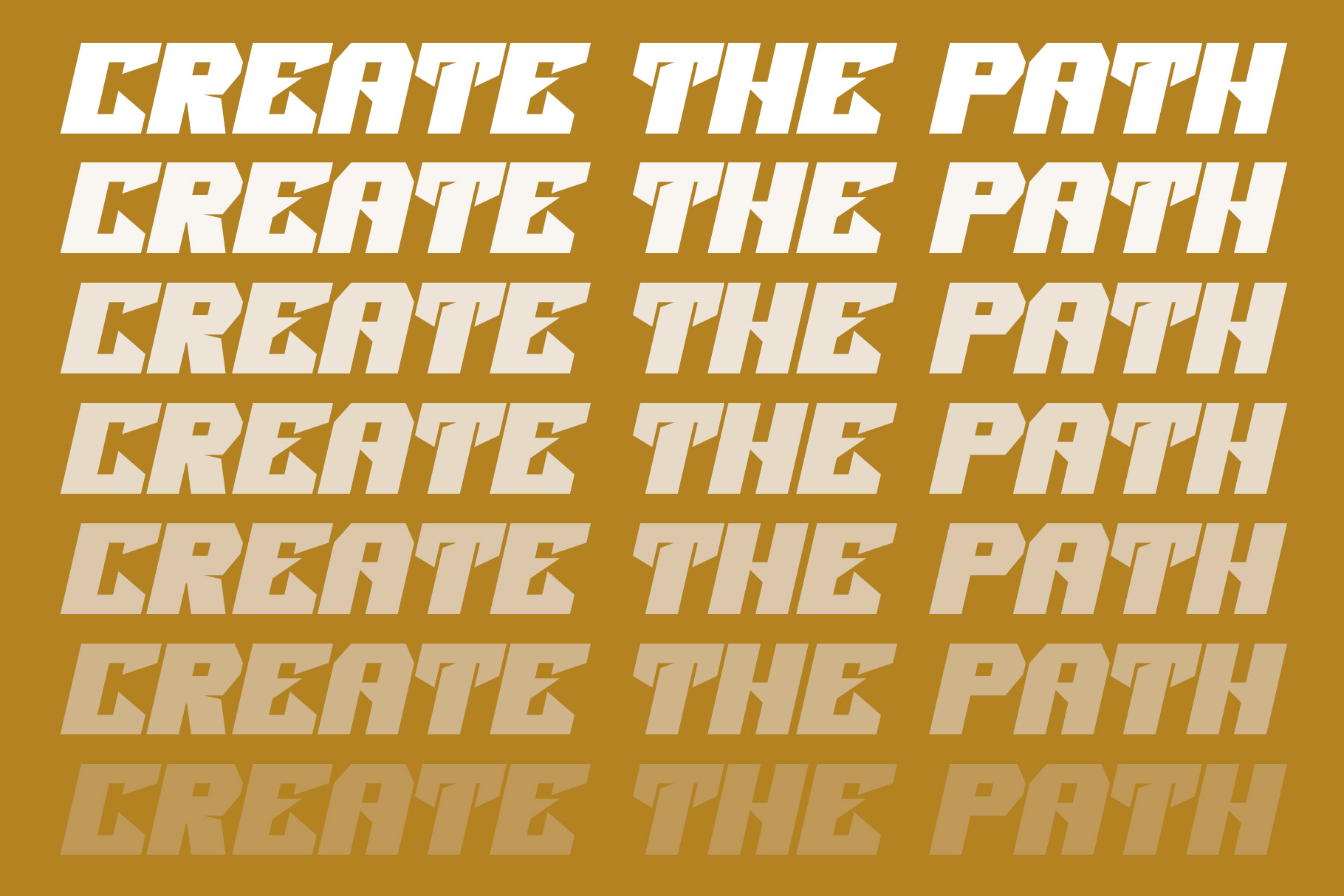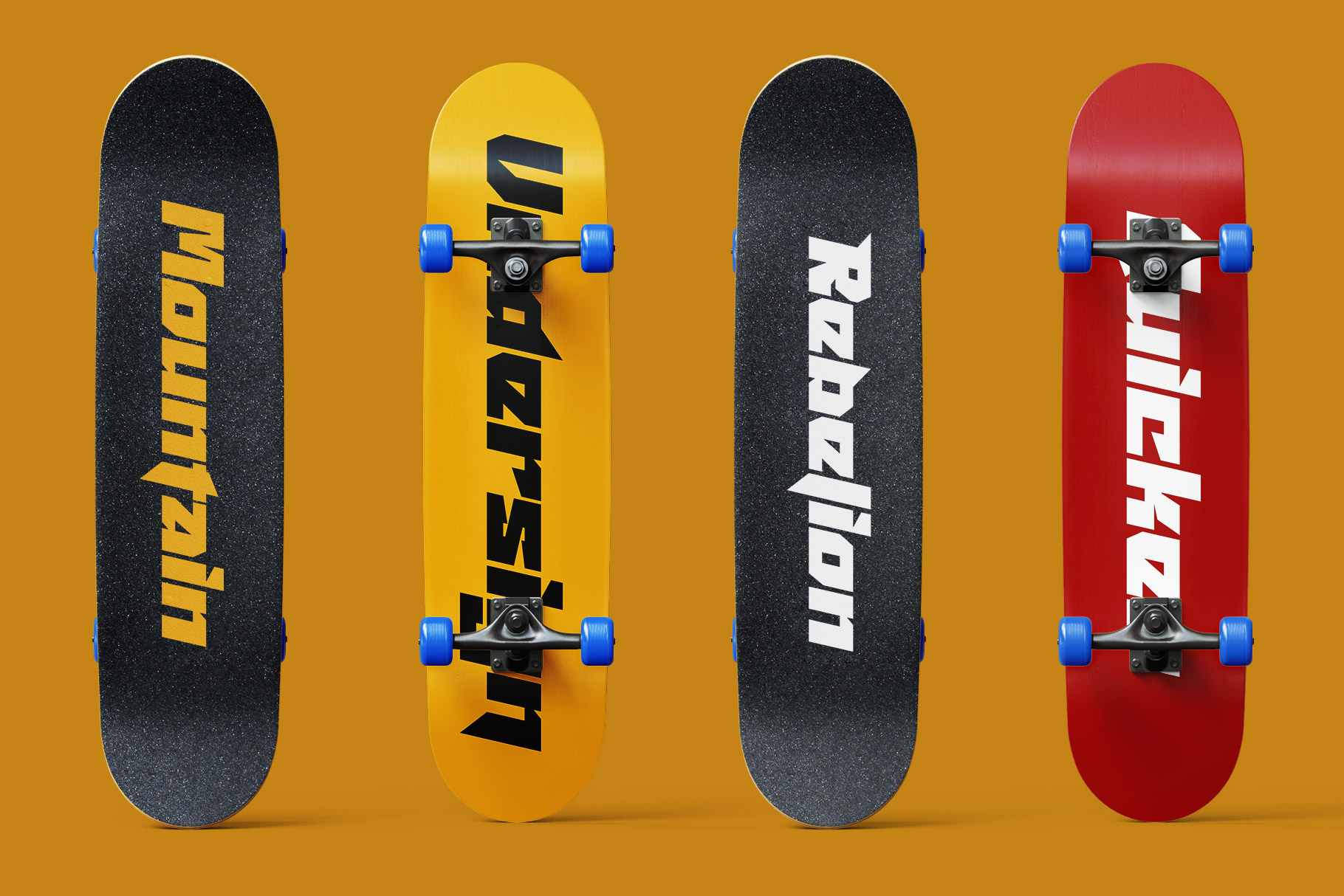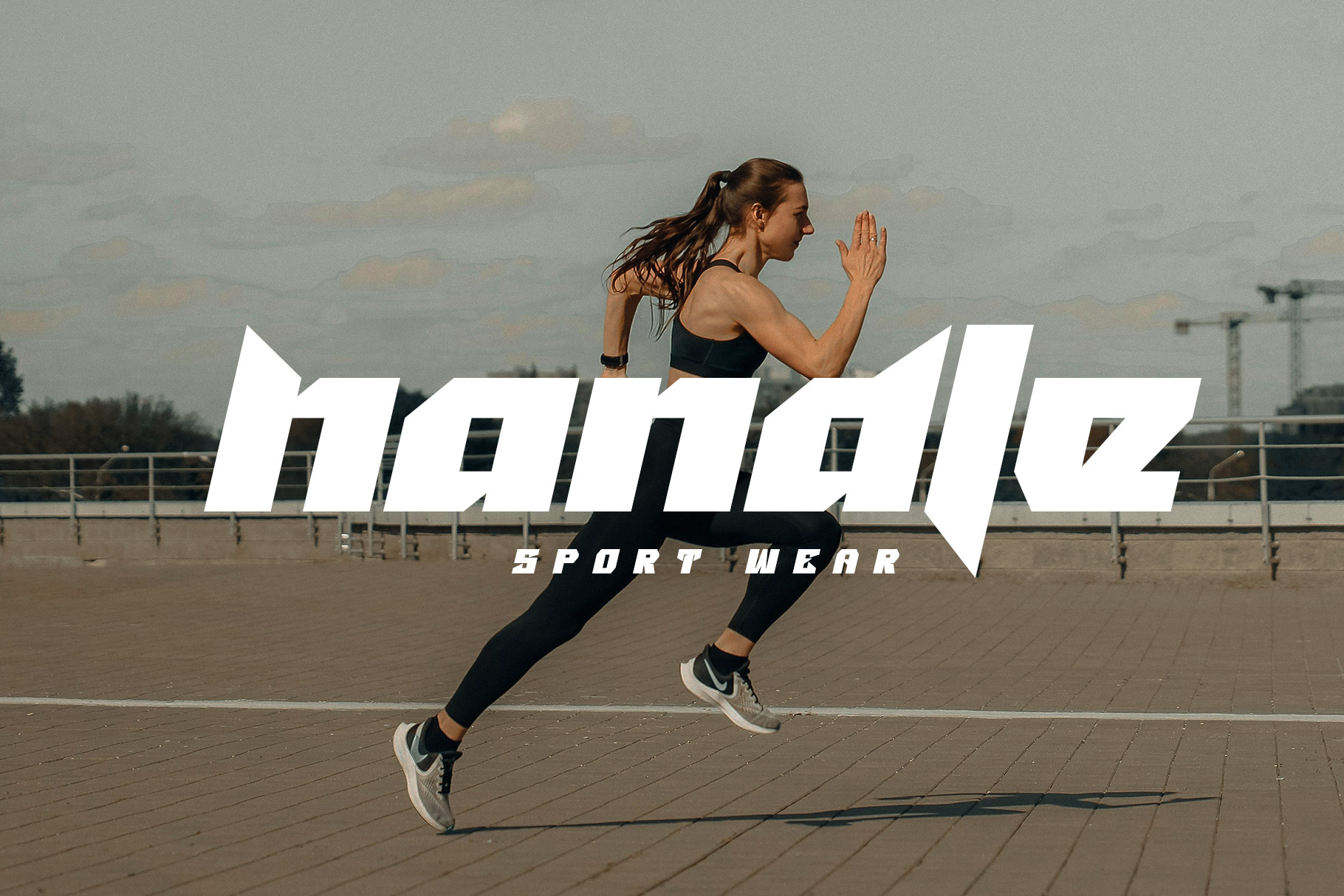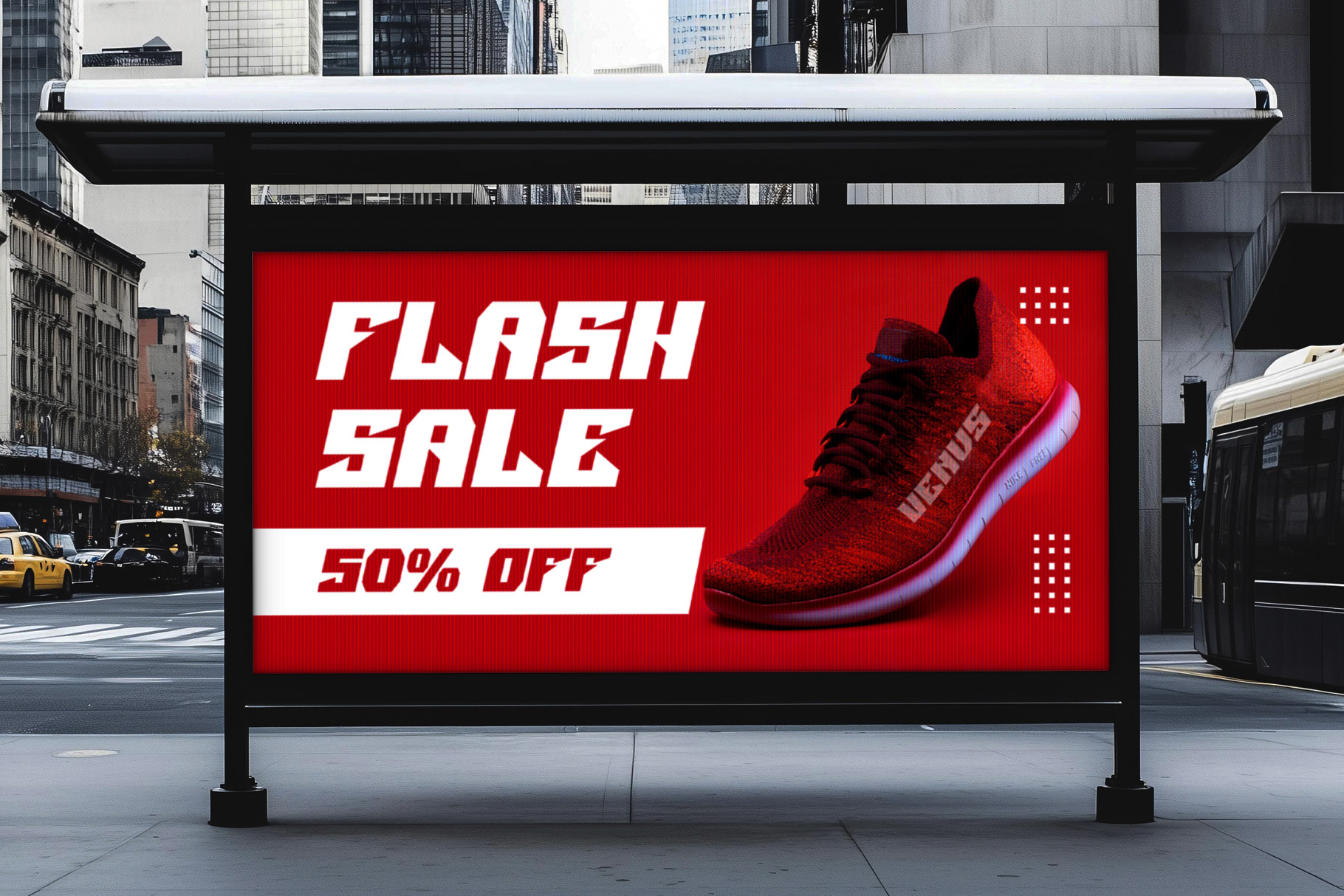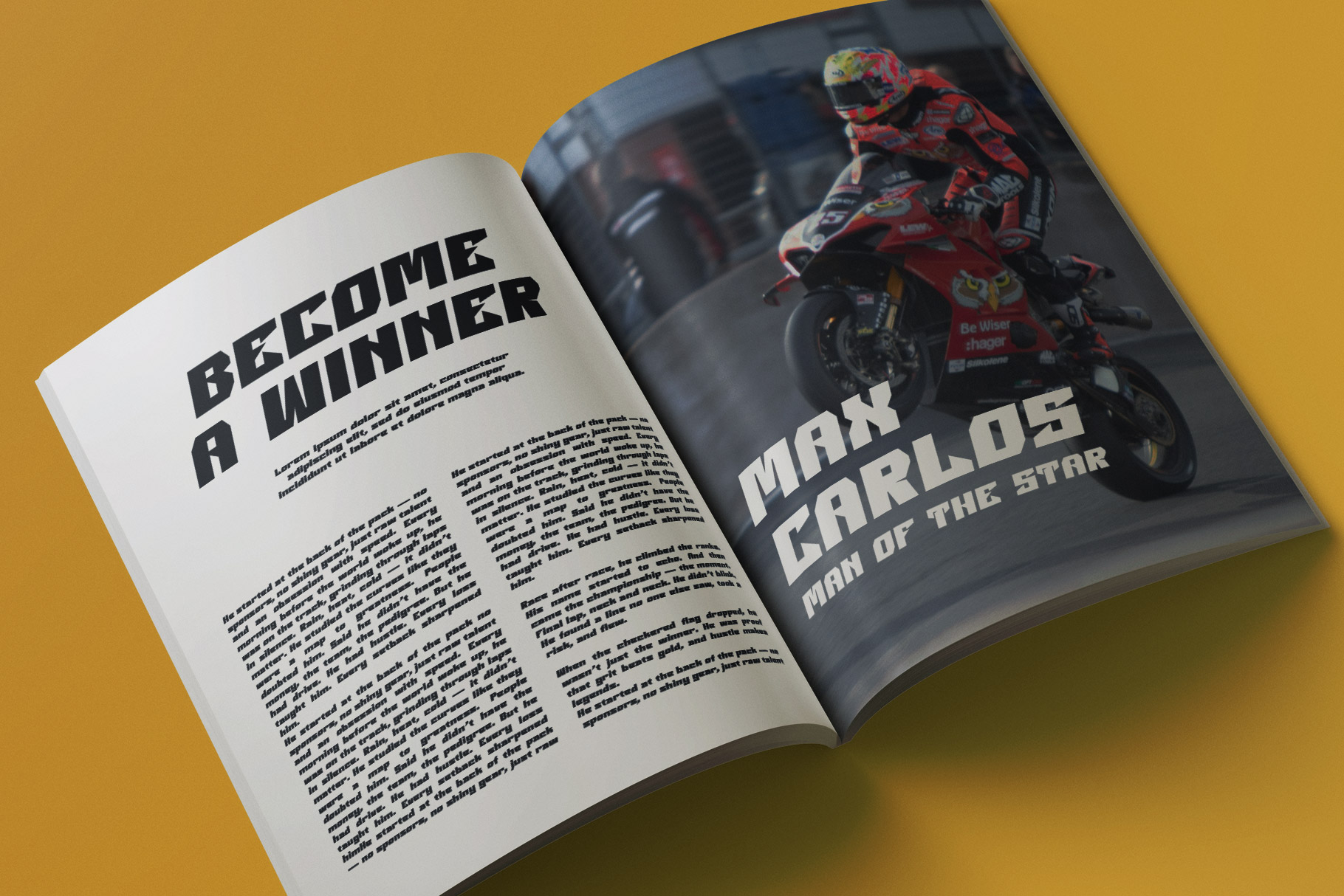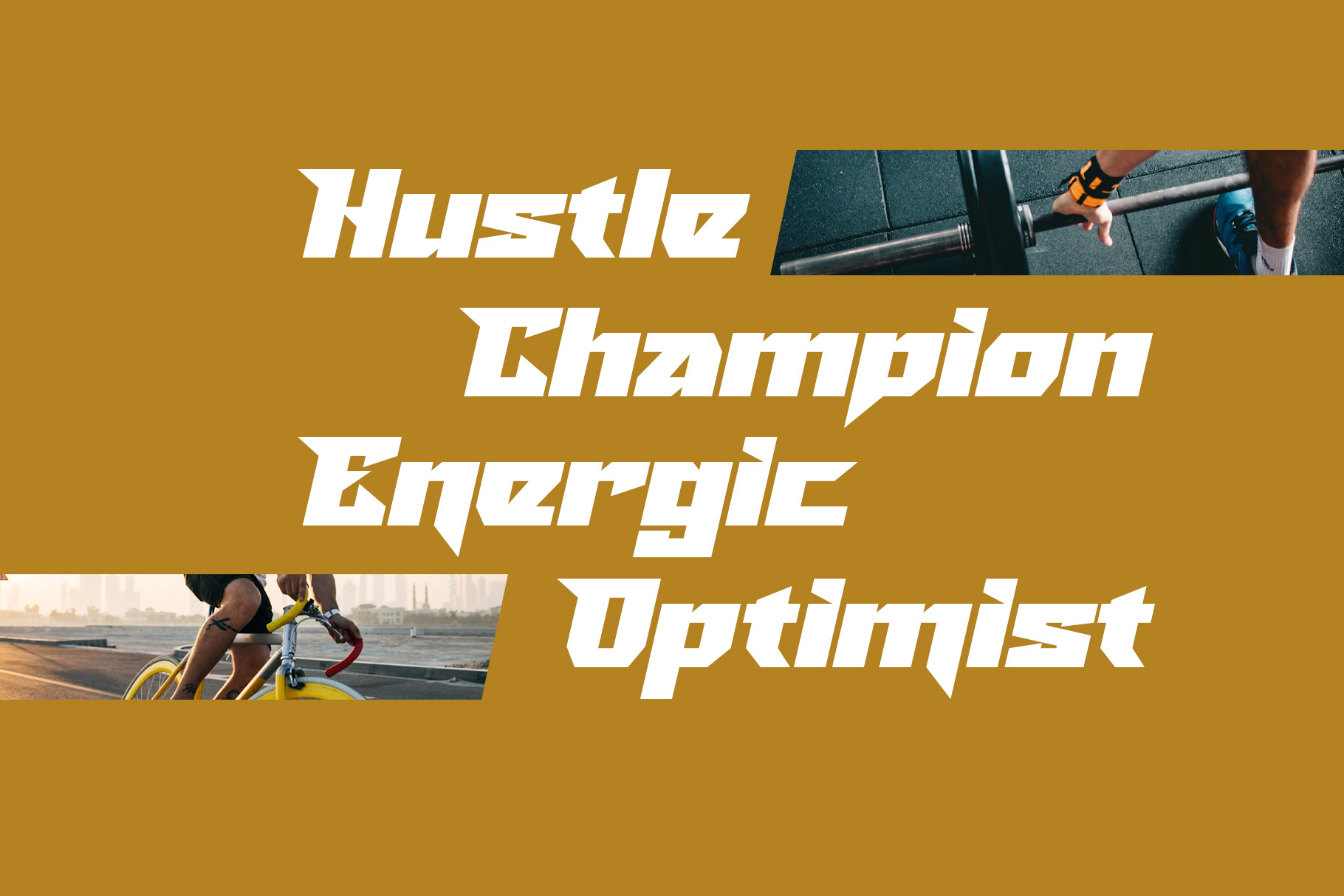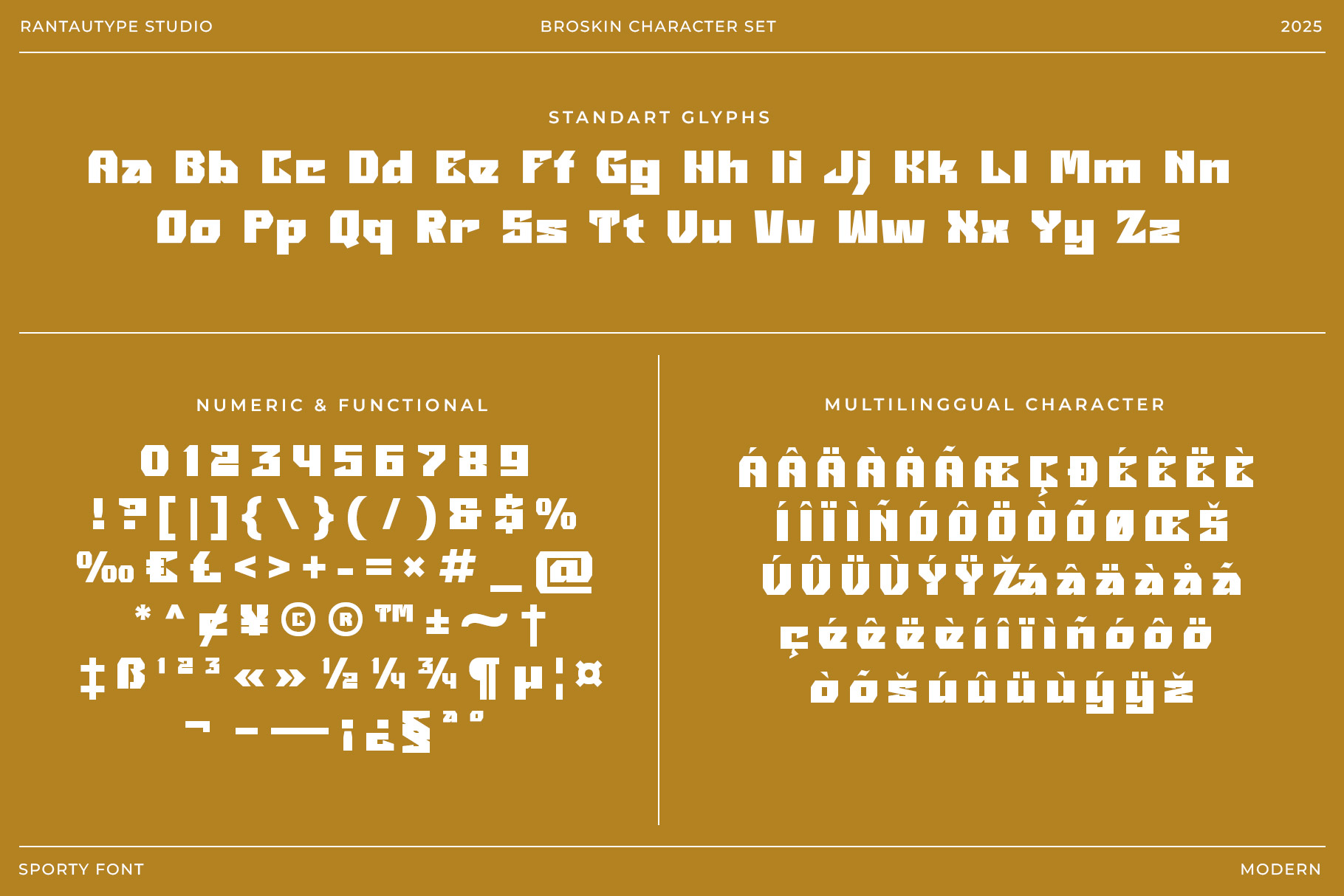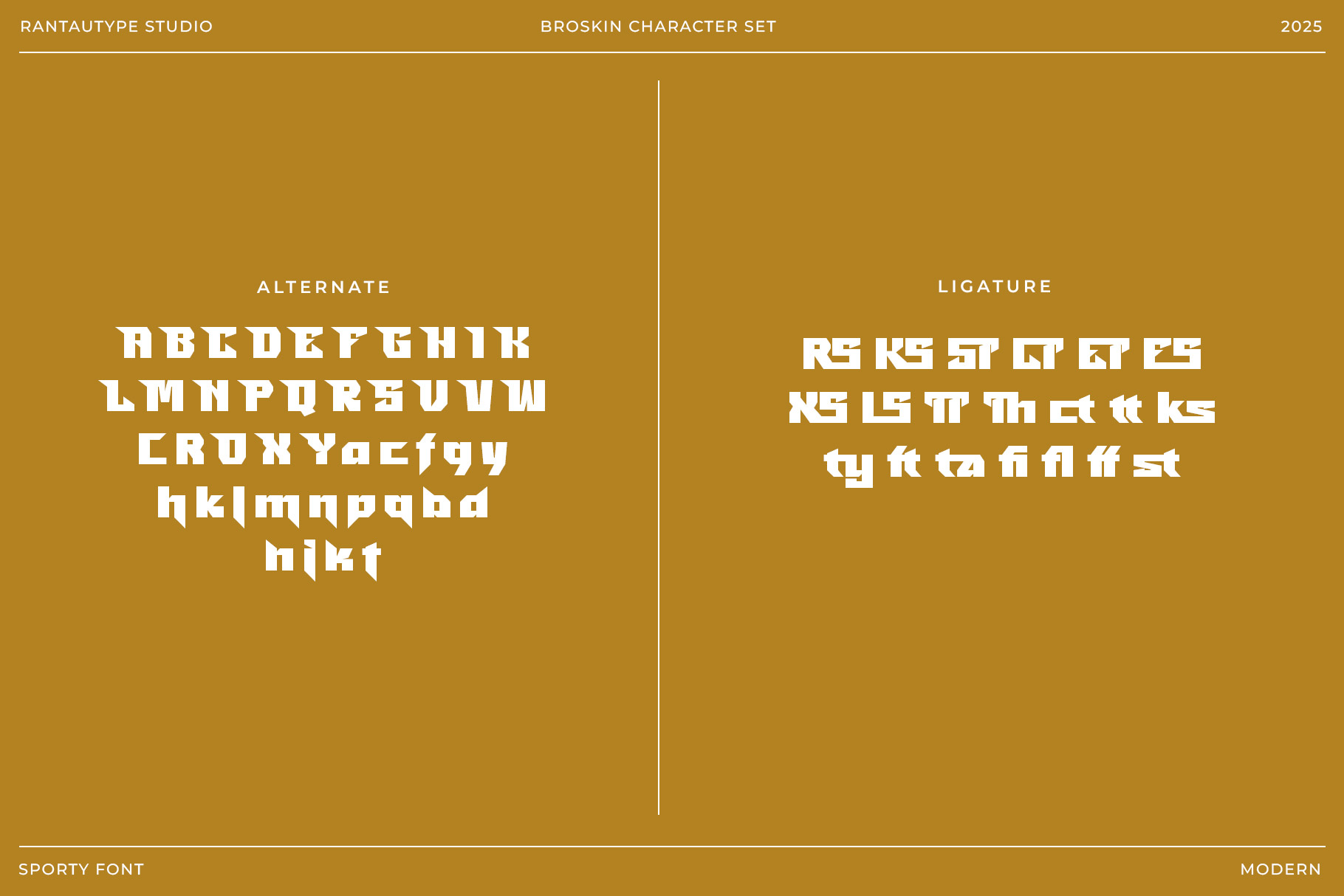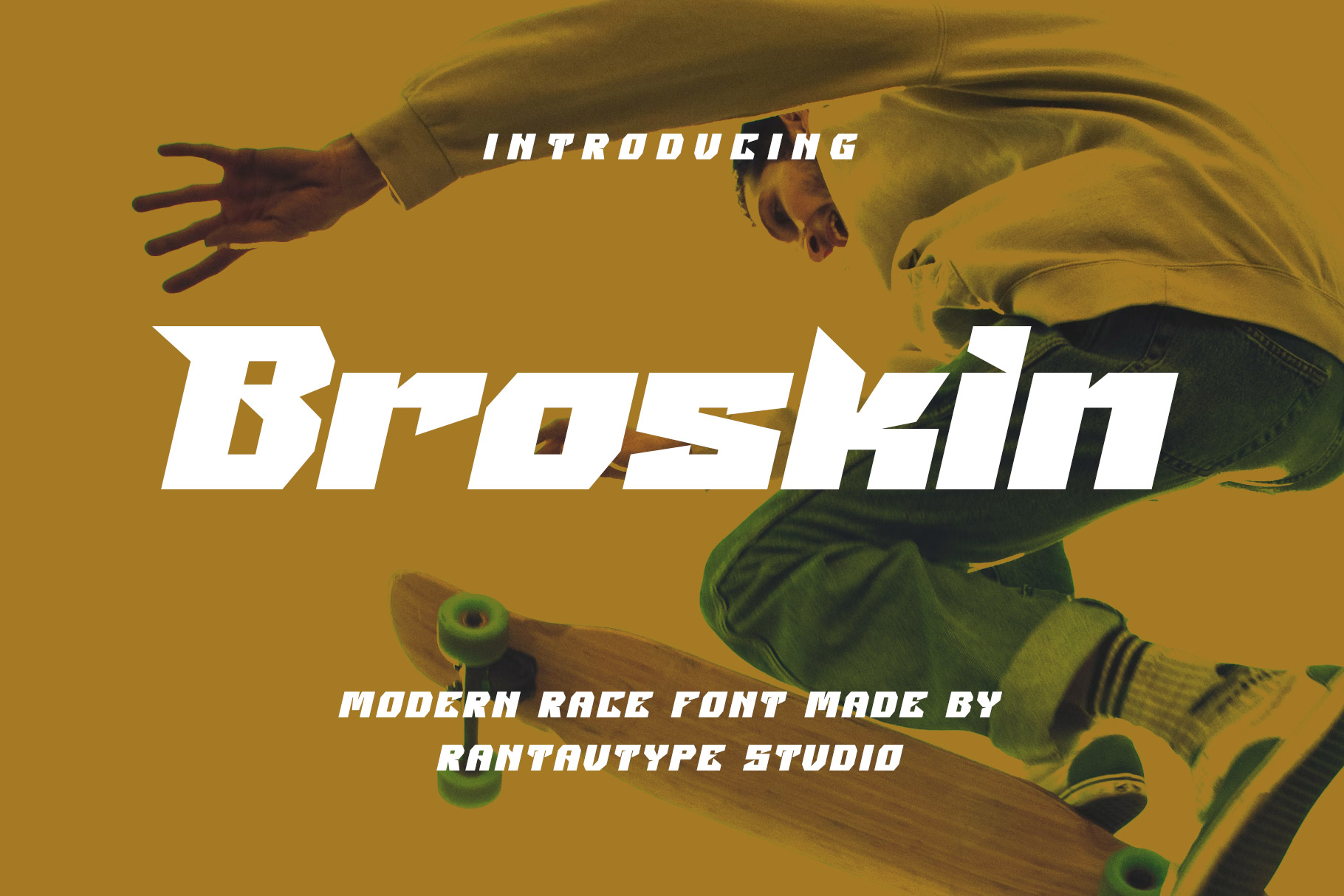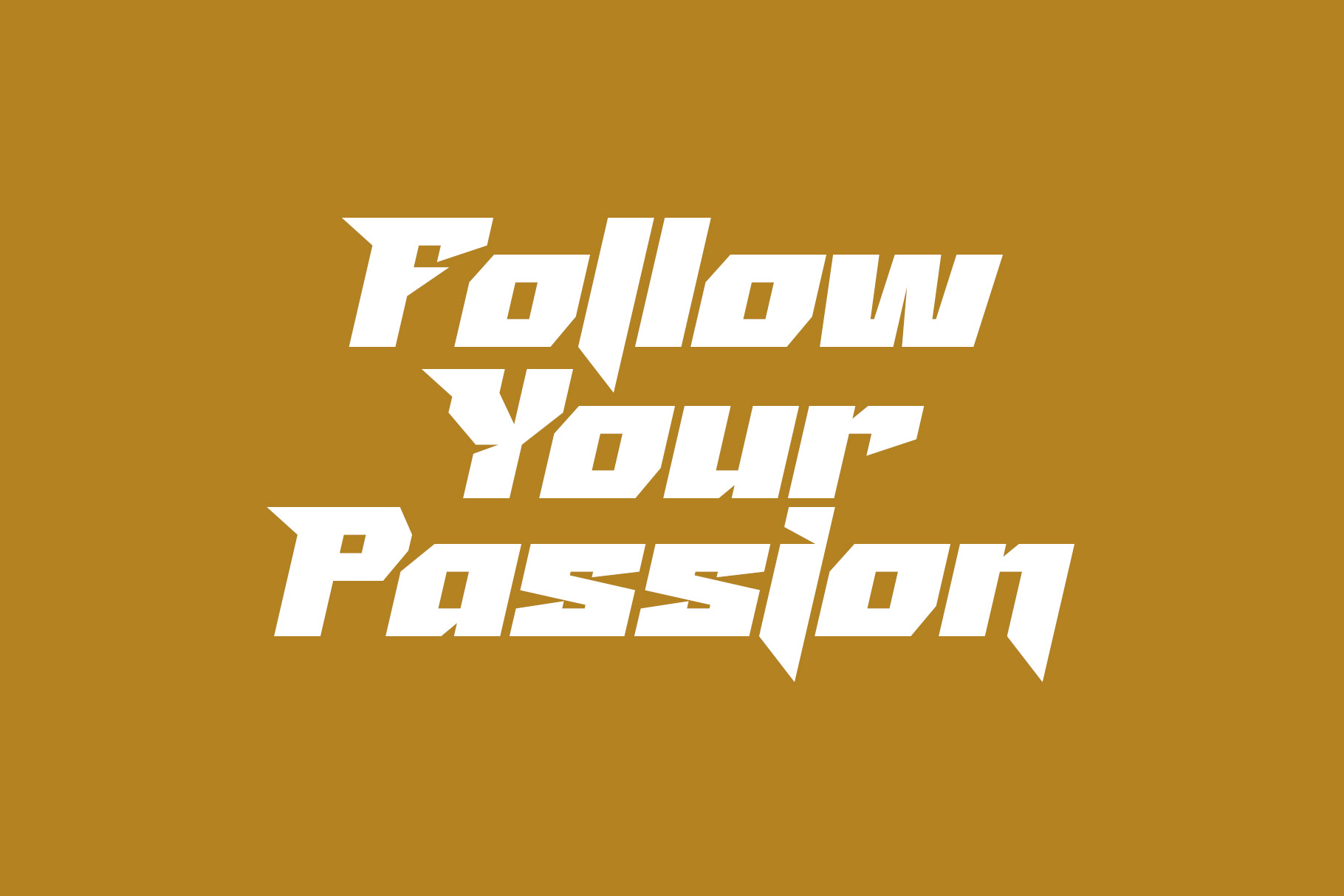
Broskin Modern Race Font
Broskin is modern race font inspire by racing visual design. Broskin is a perfectly choice for any creative endeavor, lifestyle design such as logotype, advertisements, watermark on photography, stationery, branding project, display and magazine, invitation, corporate brand, product design, label, business project and many other project with modern touch.